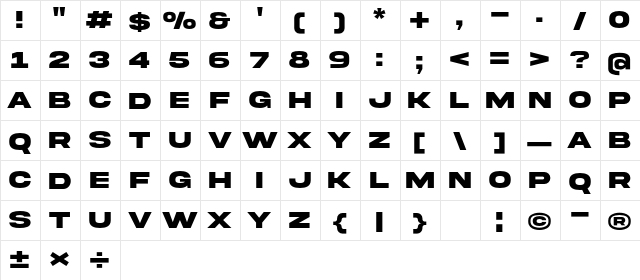
Akira Expanded Super Bold
Design Context for Akira Expanded Typeface
Akira Expanded offers clean, dependable letterforms without strong stylistic allegiance, making it a practical choice for designers who need flexibility. Its bold stroke weight gives it real presence on the page.